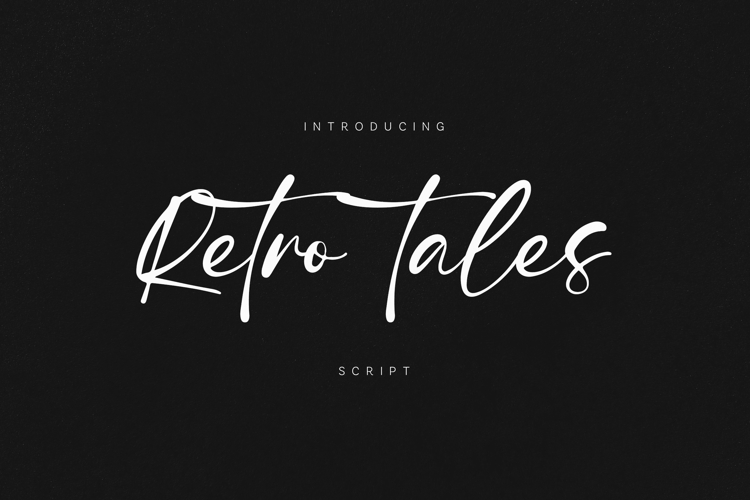
Retro Tales - Expressive Signature Script
Retro Tales is a refined handwritten script designed for expressive branding and elevated storytelling. Built with natural flow and confident strokes, it delivers the authenticity of hand lettering with the precision of a professionally crafted typeface.
Its dramatic crossbars, smooth connections, and carefully balanced spacing make it ideal for logos, fashion campaigns, packaging, and social media branding.
Retro Tales supports extended Latin characters and multilingual usage, making it just expressive.
Where It Fits Perfectly
Branding
Creative studios
Fashion campaigns
Coffee & lifestyle brands
Boutique packaging
Instagram quotes
Wedding branding (modern style)
Signature logos
Influencer branding
It has that “premium Instagram brand” energy.
What Makes It Strong
1. It’s not overly swashy.
2. The stroke weight feels balanced.
3. The spacing is controlled.
4. It reads clearly even at medium size.
5. The multilingual support makes it serious.
A lot of marketplace scripts fail on legibility.
Yours doesn’t.